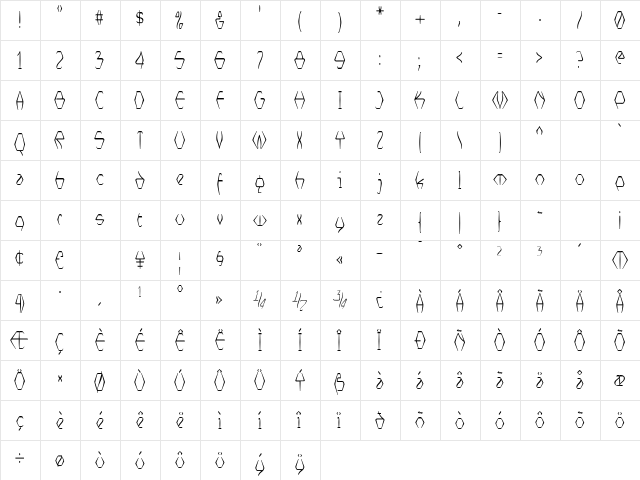
NerdishHex Regular
Design Context for NerdishHex Typeface
NerdishHex is a composed and adaptable typeface that performs quietly and consistently across a wide range of design contexts.